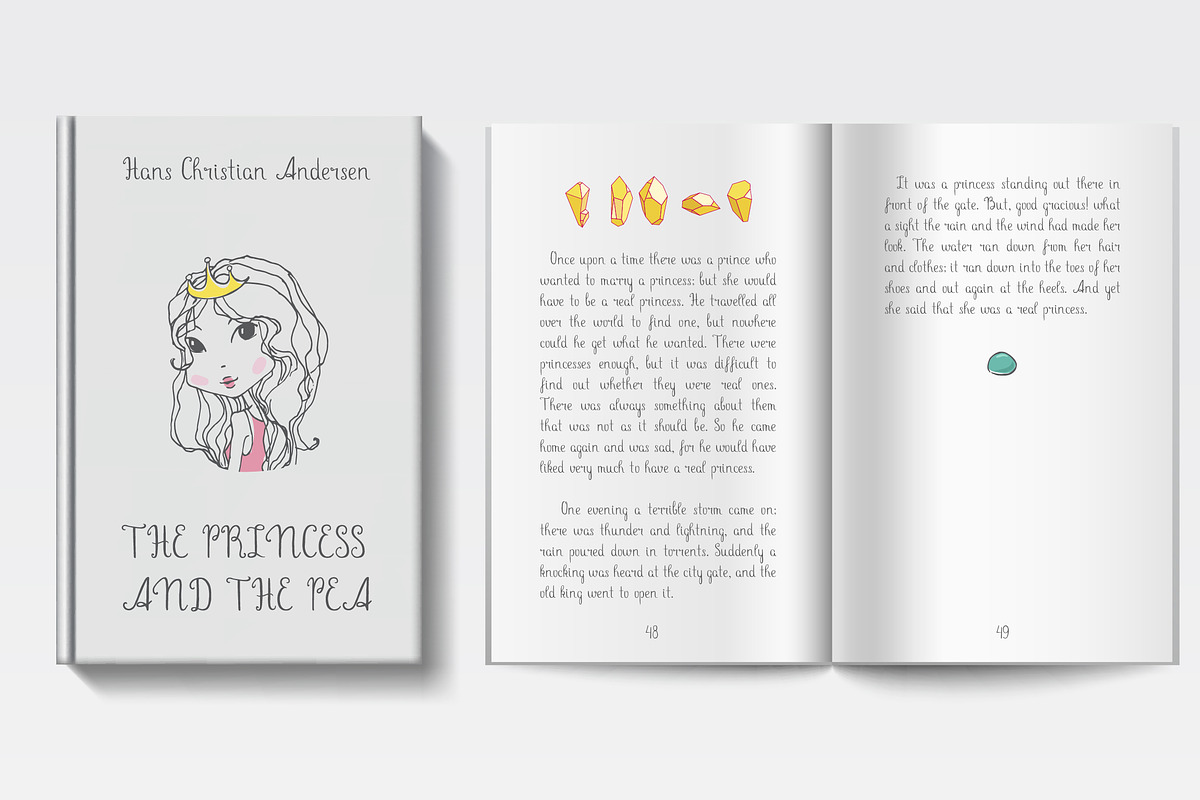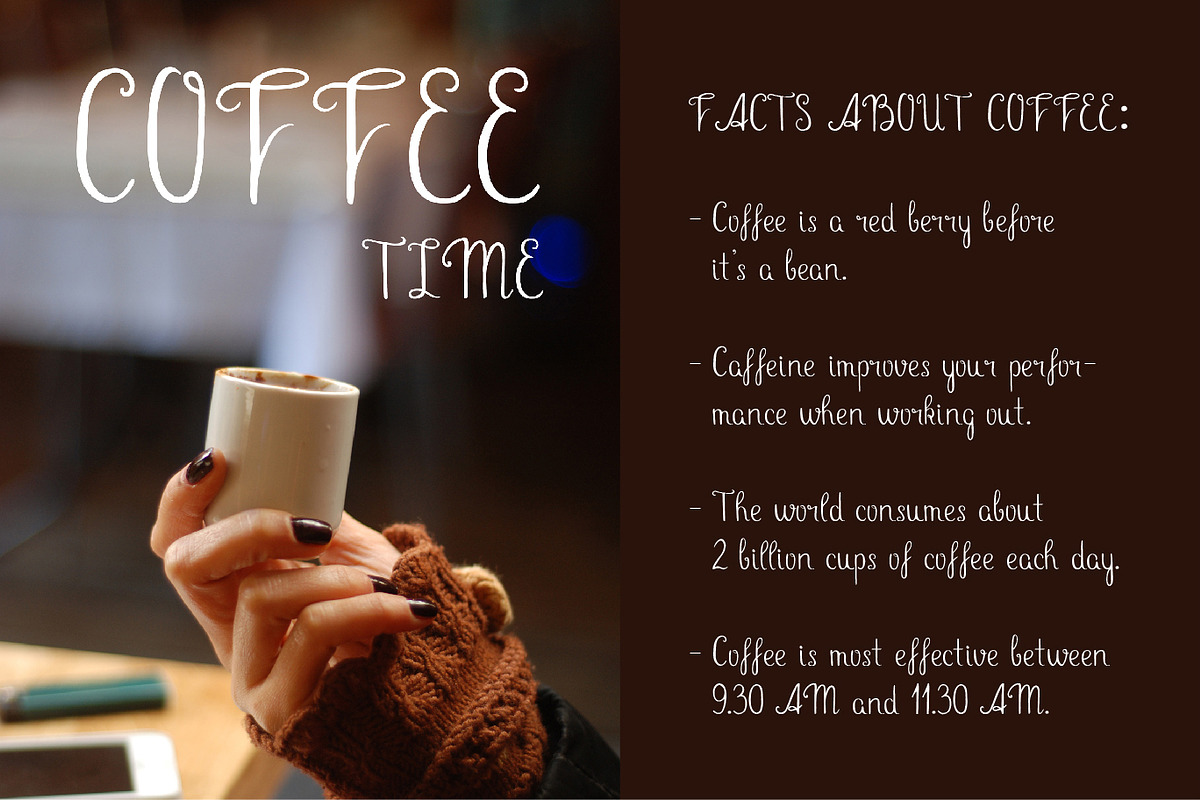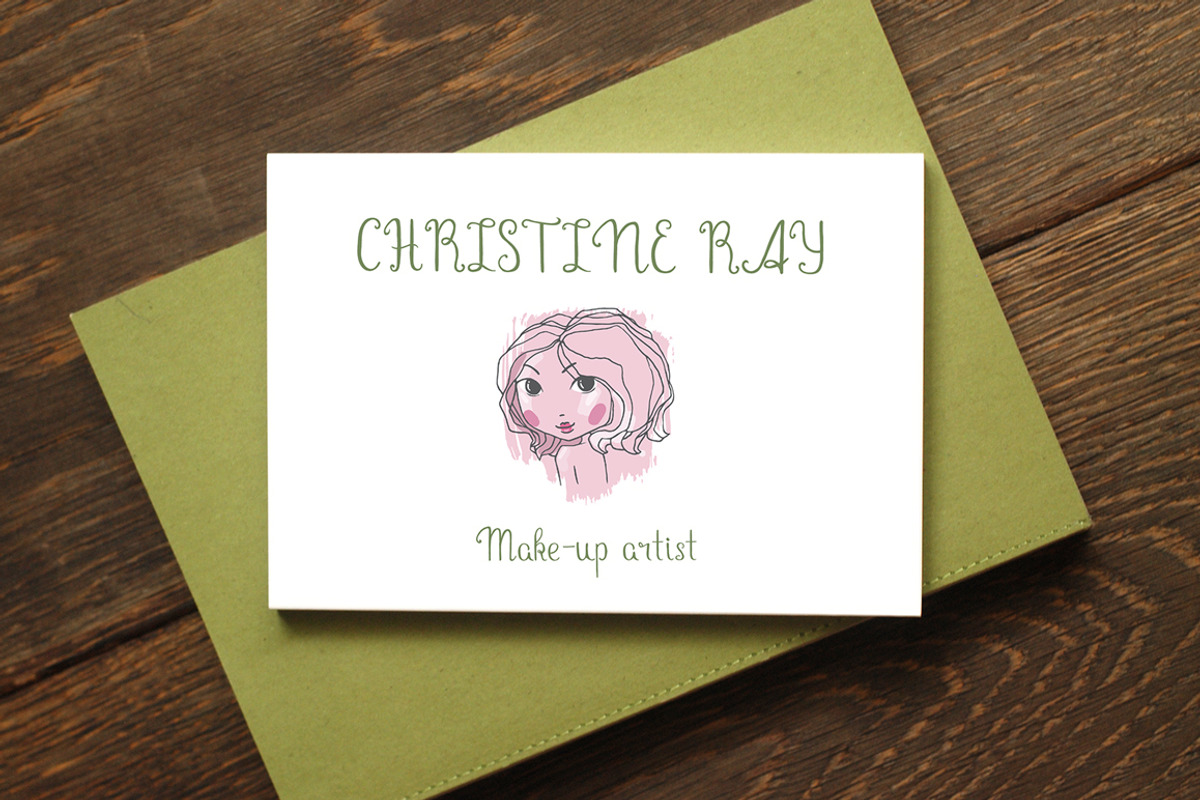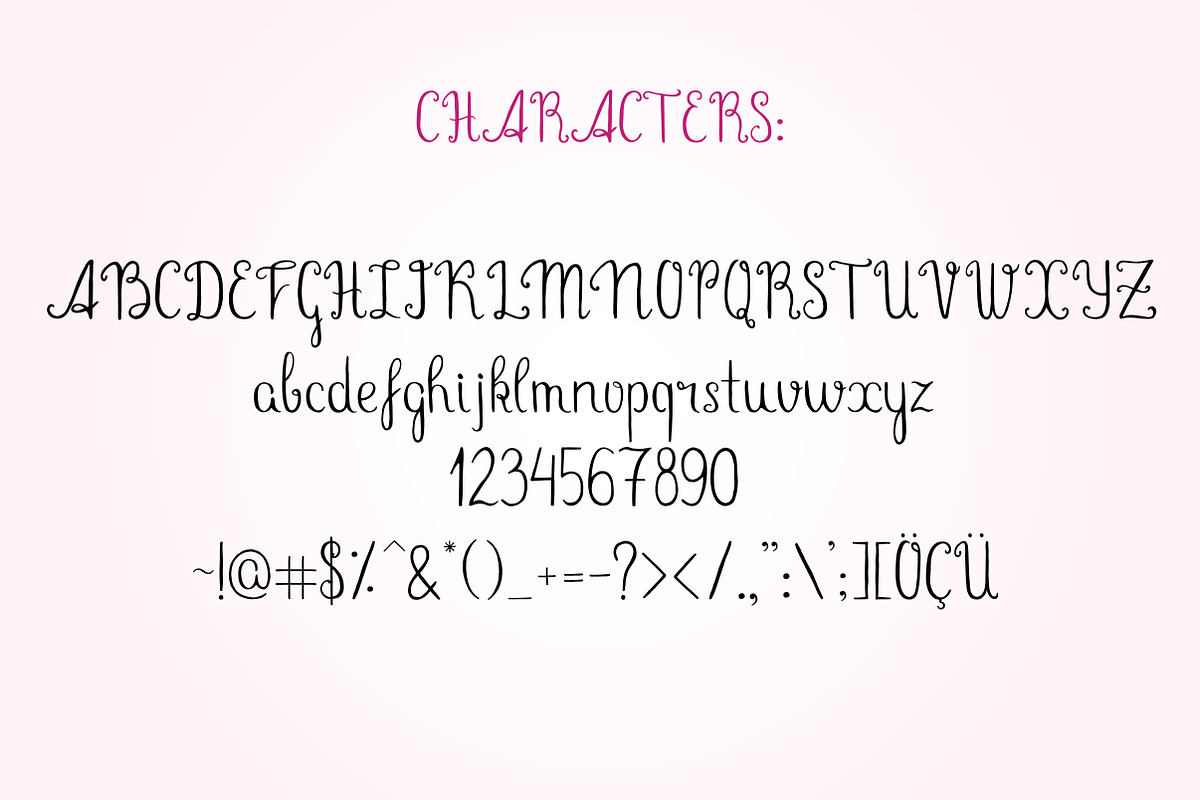
Shy Princess Decorative Font
Shy Princess Decorative Font by Moo Graphics is a font selected for branding, posters, packaging, typography.
- Shy Princess Font is a handwritten decorative straight typeface with light curvy characters.
Why Shy Princess Decorative Font is worth a look
Shy Princess Decorative Font by Moo Graphics fits naturally into Branding, posters, packaging, typography.